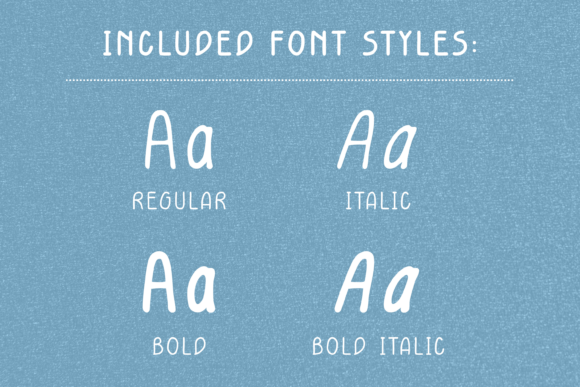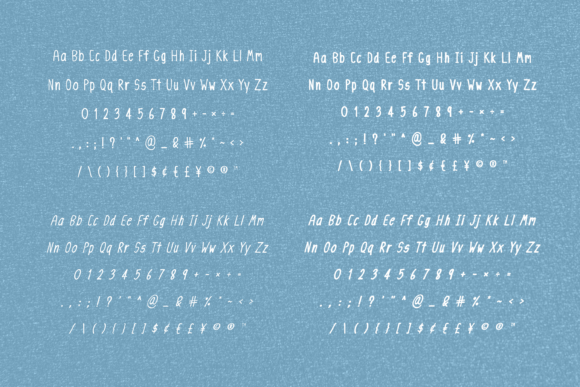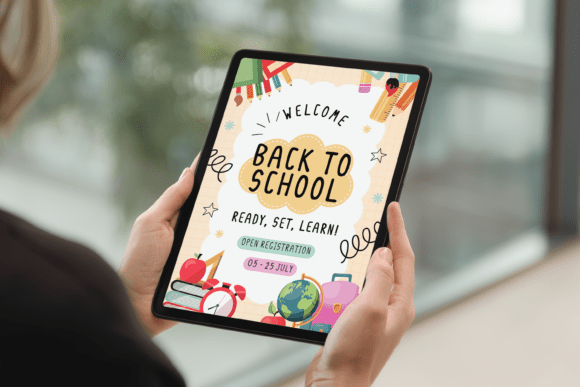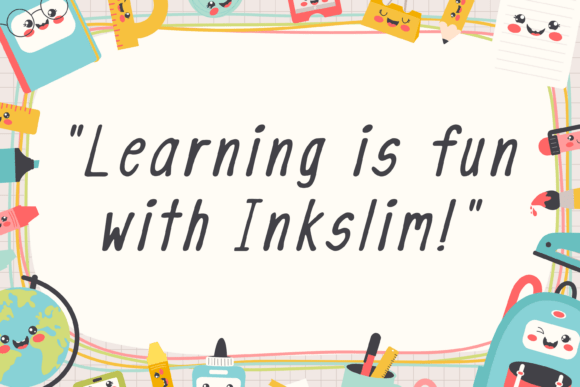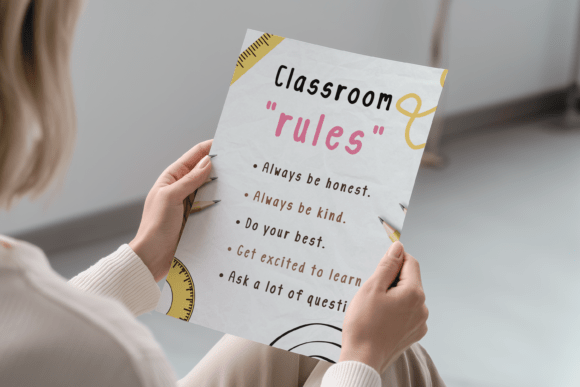
Introduction to Inkslim Font Font
Fonts play a crucial role in design, and the Inkslim Font font is a typeface that brings both character and versatility to any project. Whether you’re working on a branding project, a website, or a print design, the Inkslim Font font offers a unique style that can elevate your work.
✨ Inkslim – Handwritten Font (4 styles) Give your creative projects a personal touch with Inkslim, a whimsical handwritten font designed to feel like real ink strokes.
Perfect for everything from logos to invitations, sublimation designs, stickers, and Cricut crafts – this font blends playfulness with clarity ✨ Perfect For: – Teacher classroom decor – School worksheets & handouts – Bulletin board displays – Educational printables – Name tags & labels – Student rewards & stickers – Homeschool resources – Back to school projects – Teacher planners & lesson plans – Cricut & Silhouette projects – Procreate & Canva text overlays.
Key Features of Inkslim Font Font
Why Choose Inkslim Font Font?
The Inkslim Font font is more than just a typeface – it’s a design tool that helps you communicate your message with style and clarity. Its unique character set and versatile design make it suitable for a wide range of applications, from elegant invitations to bold headlines.
With its carefully crafted letterforms and balanced proportions, the Inkslim Font font ensures readability and visual appeal across all mediums.
What makes Inkslim Font font special?
The Inkslim Font font stands out with its unique design, exceptional readability, and versatility across various design applications.